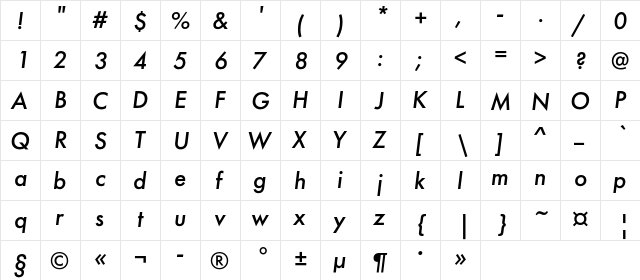
FuturisC Italic
Design Context for FuturisC Typeface
FuturisC channels digital-age aesthetics through its sharp, structured letterforms — ideal for brands that want to signal innovation. The slanted form adds forward momentum and visual energy.
Pro Tip: Use FuturisC in combination with a neutral sans for body text. Let it define the brand voice in headlines while keeping reading comfortable elsewhere.